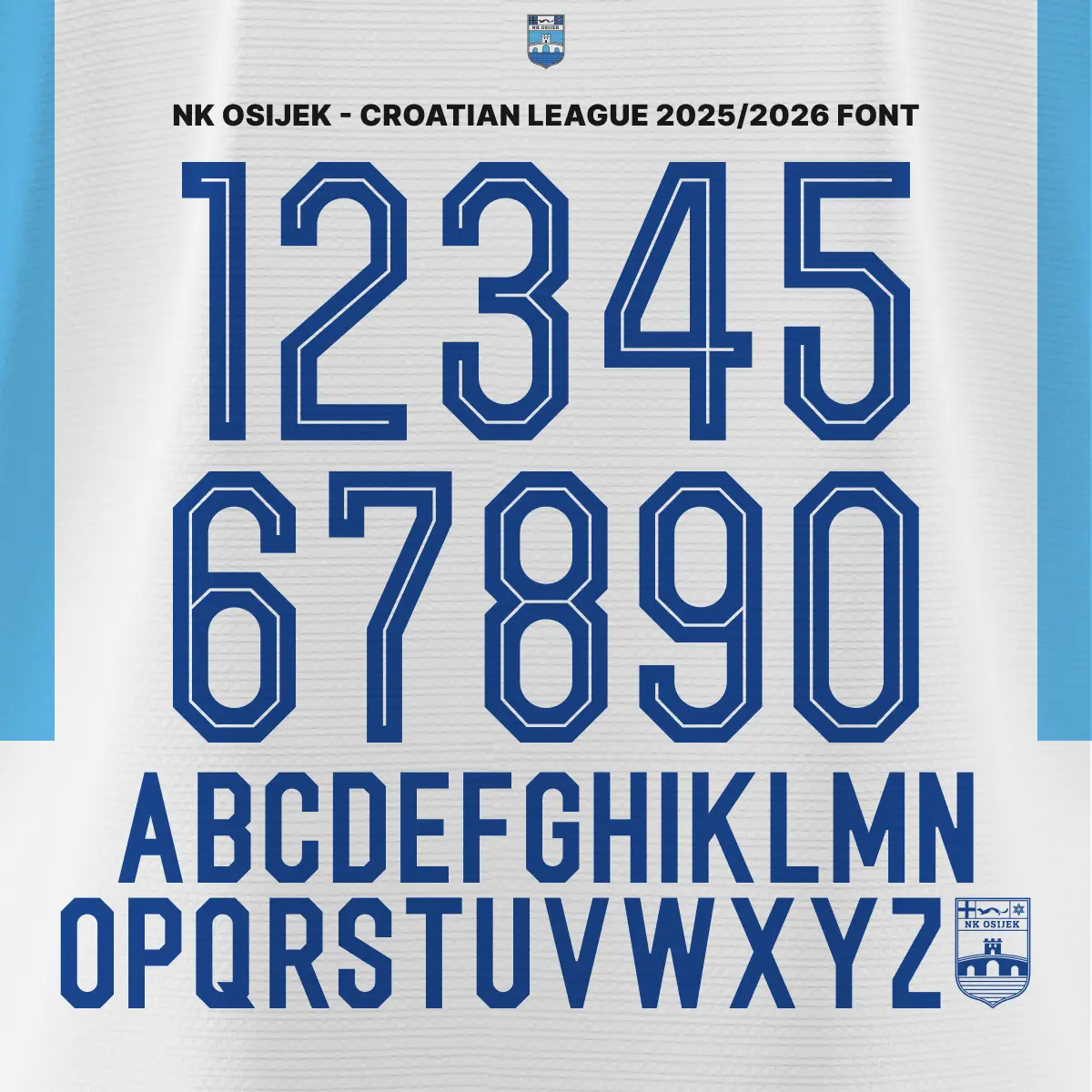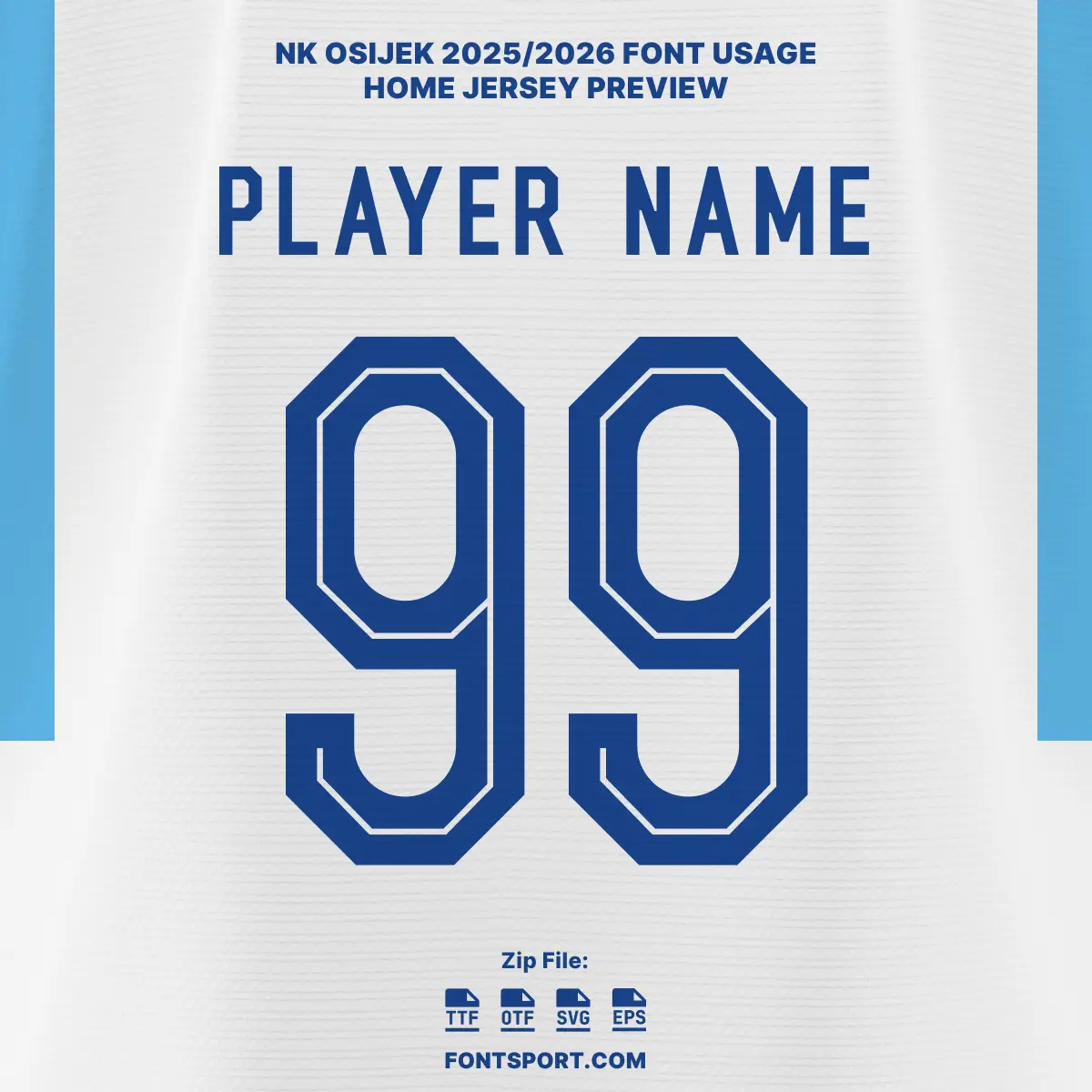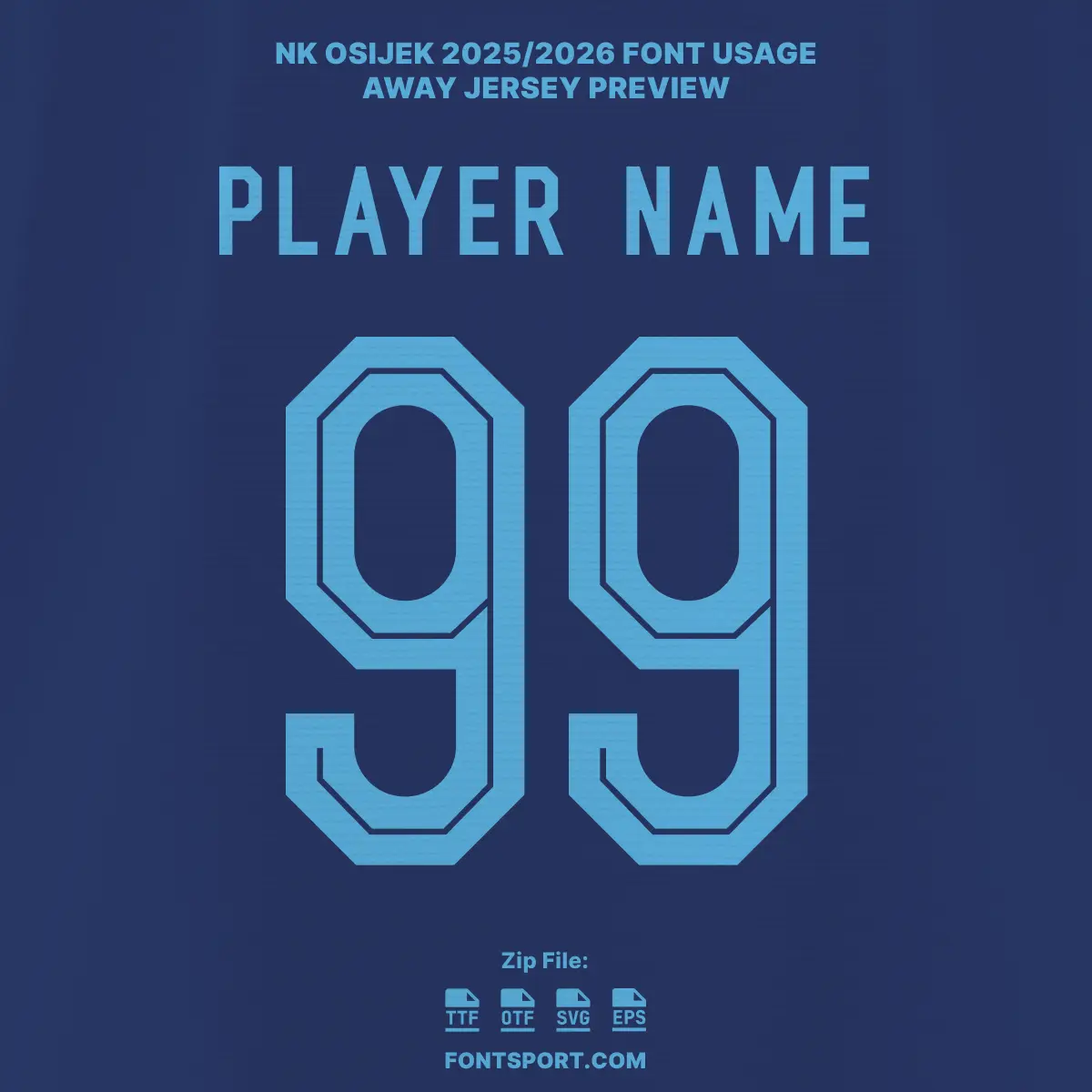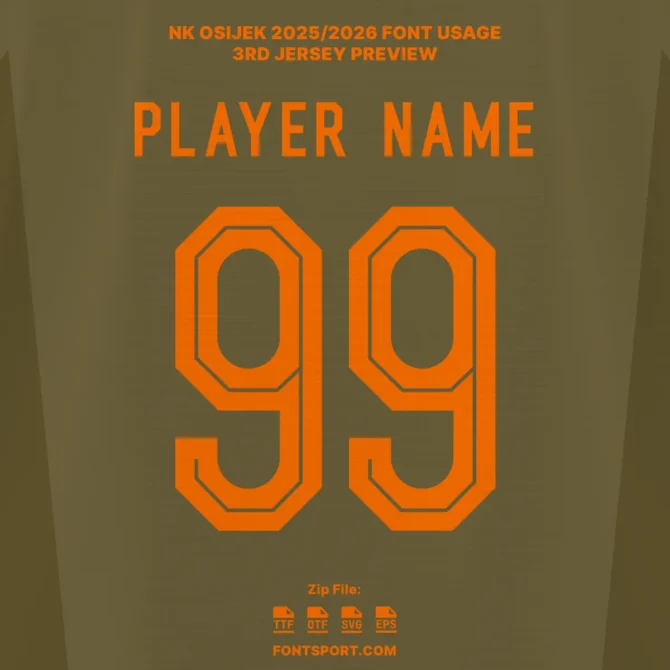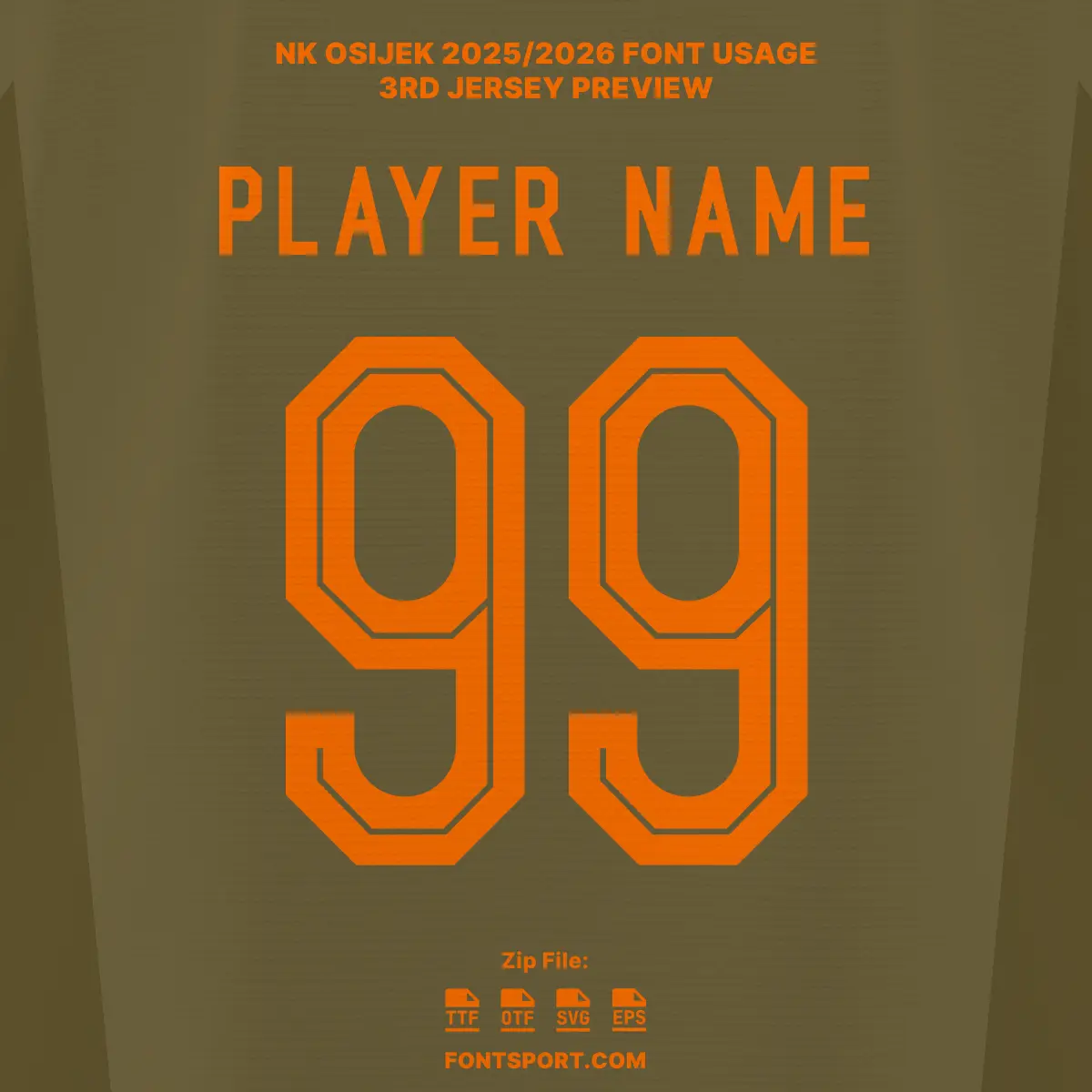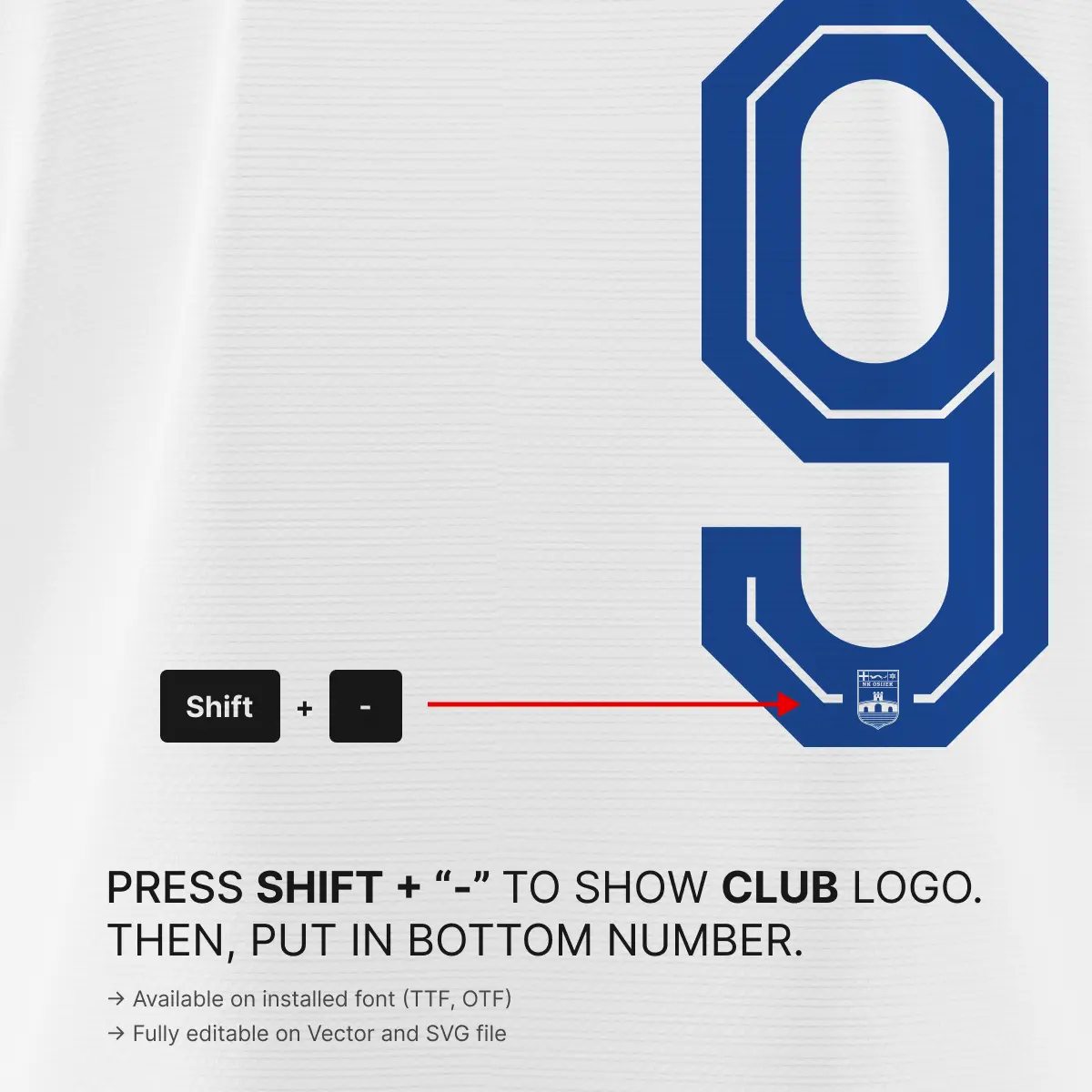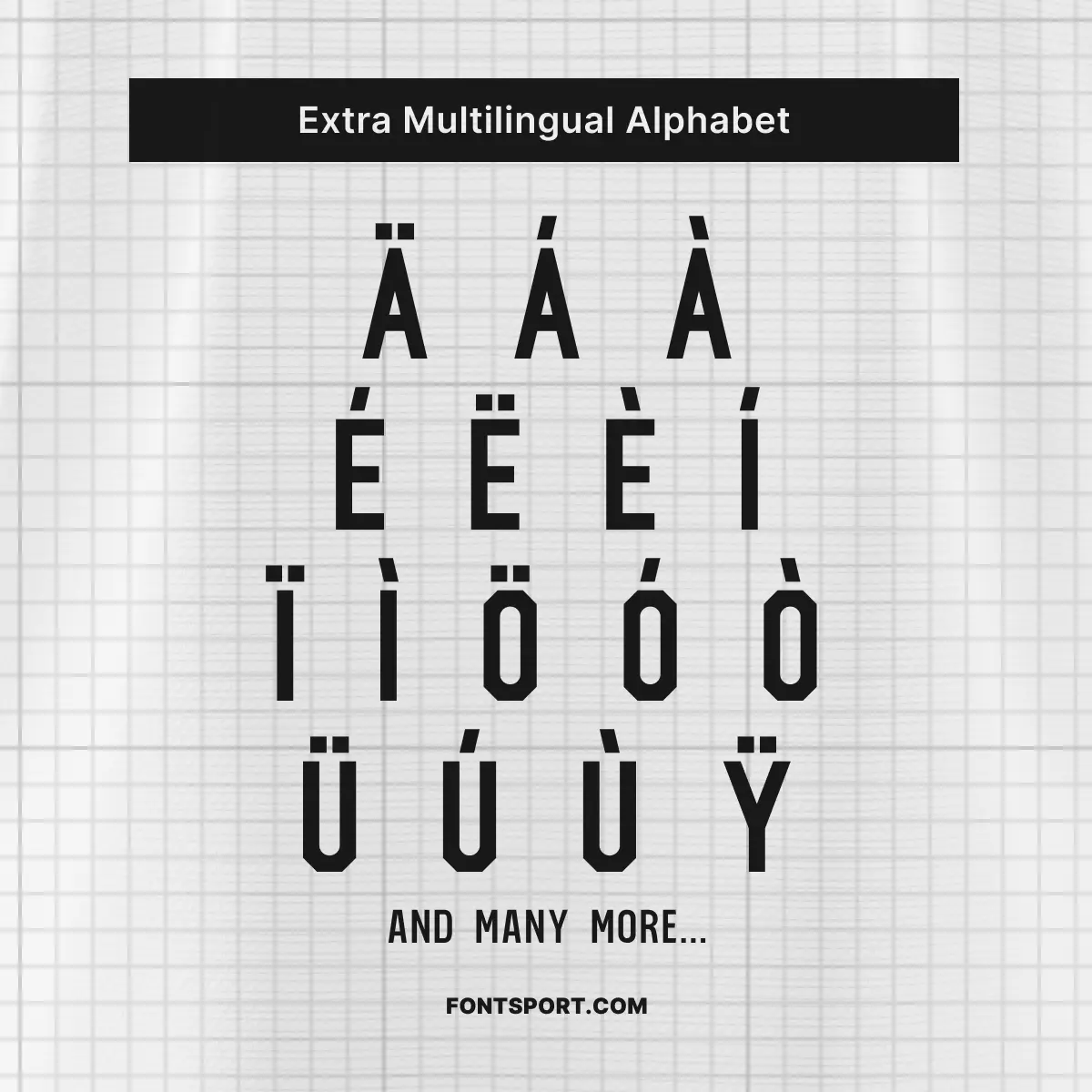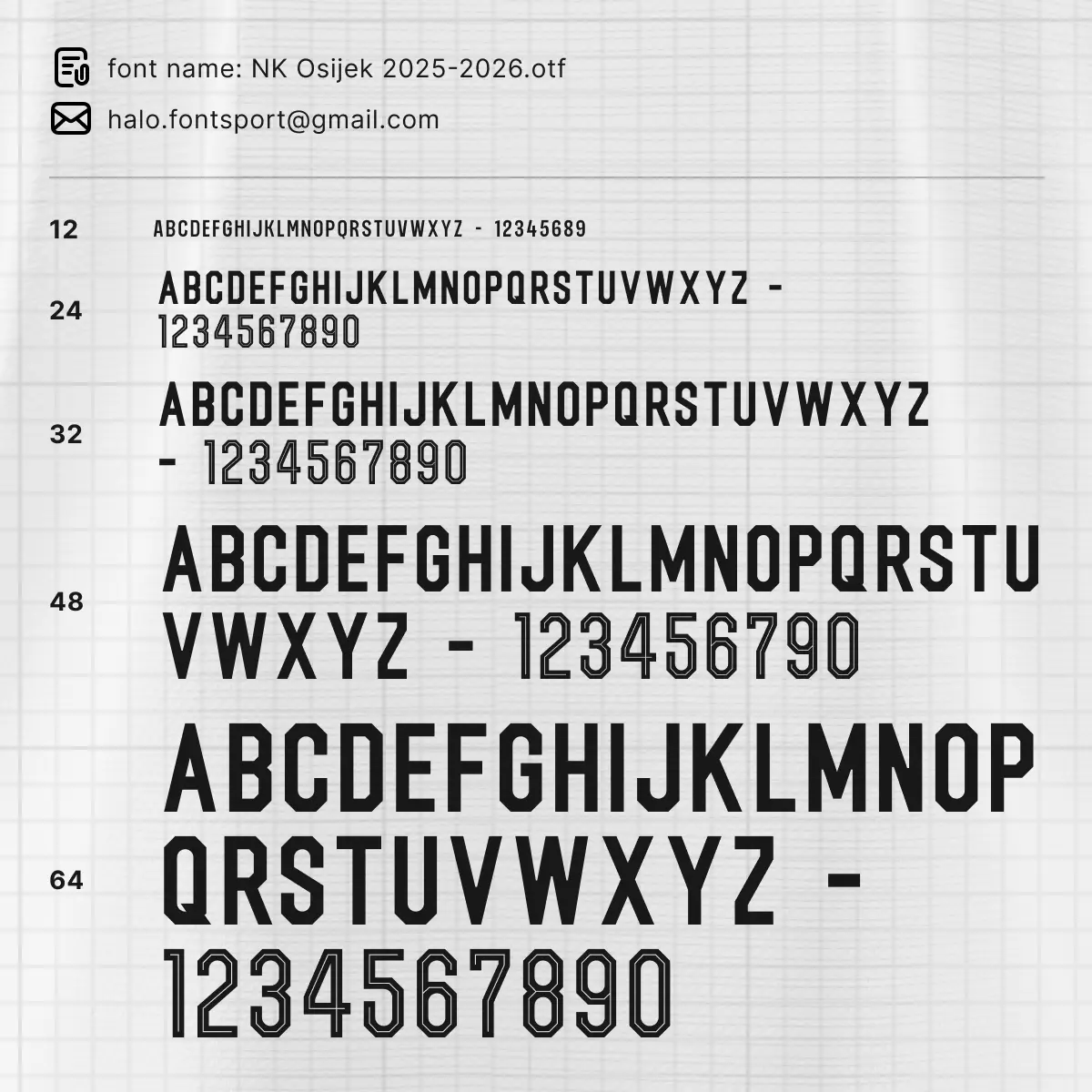
NK Osijek 2025/2026 Font Kit – Official Croatian First Football League Typeface
The NK Osijek 2025/2026 Font Kit is the official typeface worn by NK Osijek in the Croatian First Football League (HNL) for the 2025/2026 season. Designed with bold, modern strokes and a clean geometric balance, this exclusive jersey font embodies the spirit of Croatian football while offering sharp readability both on the pitch and across digital platforms.
Unlike generic fonts, the NK Osijek Font Kit comes with authentic detailing inspired by the club’s identity, ensuring your designs carry the same professional aesthetic seen on Osijek’s official kits.
With its sleek proportions and versatile style, this kit is ideal for jersey mockups, sports merchandise, fan-made posters, and social media content. Whether you’re creating matchday visuals or designing authentic Croatian football apparel, this font delivers precision and pride.
• Uppercase A–Z & numbers 0–9 in Osijek’s authentic 2025/2026 style
• Multilingual Latin alphabet support with diacritics
• 🏆 Directly inspired by NK Osijek’s official kit identity for the 2025/2026 season
NK Osijek in the 2025/2026 Season
NK Osijek continues its proud tradition in Croatian football, competing at the highest level of the HNL in the 2025/2026 season. With standout players like Kristijan Lovrić and Domagoj Bukvić showcasing their talent, this official font kit represents the club’s unique visual identity on the pitch.
For designers, fans, and creators, this kit is more than just a typeface—it’s a creative toolkit that merges official authenticity with unlimited design flexibility.
5. The available characters include uppercase letters (for player names), and numbers (for player jersey numbers).
NK Osijek Croatian League 2025/2026 Font full set – official alphabet and numbers used on home jersey with Osijek club logo detail. Available on fontsport.com.